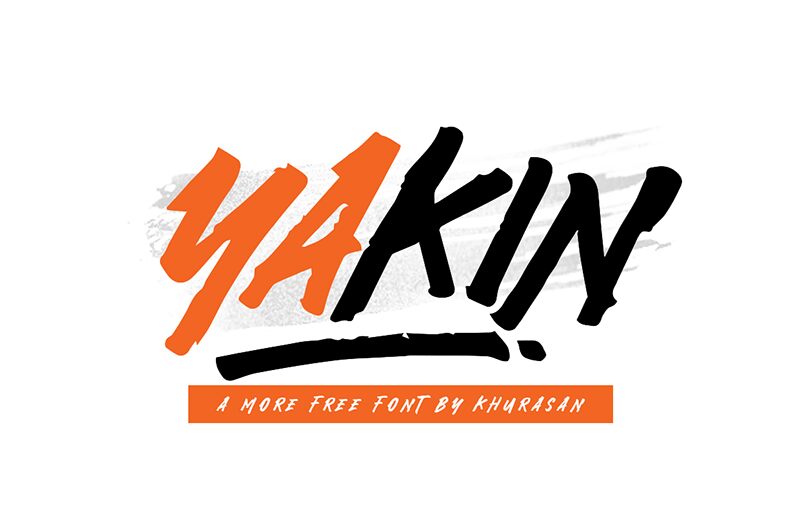
Yakin
Yakin, the latest creation of Khurasan, is a brush-style font that packs a punch in its condensed form. With its bold strokes and dynamic curves, Yakin is perfect for projects that require a powerful and impactful design. Use it for album covers, social media posts or even product packaging to make your brand stand out from the crowd. Whether you're looking to create an edgy urban vibe or an elegant vintage feel, Yakin's versatility makes it suitable for any project that demands attention. Start using Yakin today and watch your designs come to life in bold brush strokes!